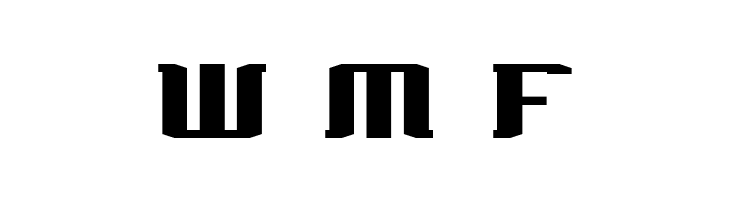
A bold, 3D geometric font with a striking shadow effect.
A playful, handwritten font with a casual and dynamic style.
A bold, vintage-inspired serif font with a modern twist, featuring thick serifs and unique character designs.
A bold, decorative font with spiky serifs and intricate details.
A bold, geometric font with thick, angular strokes.
A modern, geometric font with a bold and slightly condensed style.
A bold, outlined font with a playful, futuristic style and rounded, bubble-like characters.
A decorative, maze-like font with a futuristic and abstract style.
A bold, rounded font with a playful, modern aesthetic.
A modern, rounded geometric font with a futuristic style.
A playful, wavy font with a hand-drawn, whimsical style.
An intricate, entangled font with geometric, maze-like patterns.
A bold, 3D geometric font with a strong, architectural style.
A pixelated, geometric font inspired by retro digital displays.
A bold, outlined font with a playful, hand-drawn style.
A bold, modern font with a futuristic and geometric design.
A playful, continuous line font with a modern and cohesive design.
A bold, geometric font with interconnected puzzle-like characters.
A futuristic, hollow, geometric font with clean lines and angular shapes.
A playful, bold font with rounded, hand-drawn characters and a whimsical style.
A bold, playful font with a 3D shadow effect and rounded characters.
A bold, futuristic font with a three-dimensional outline style.